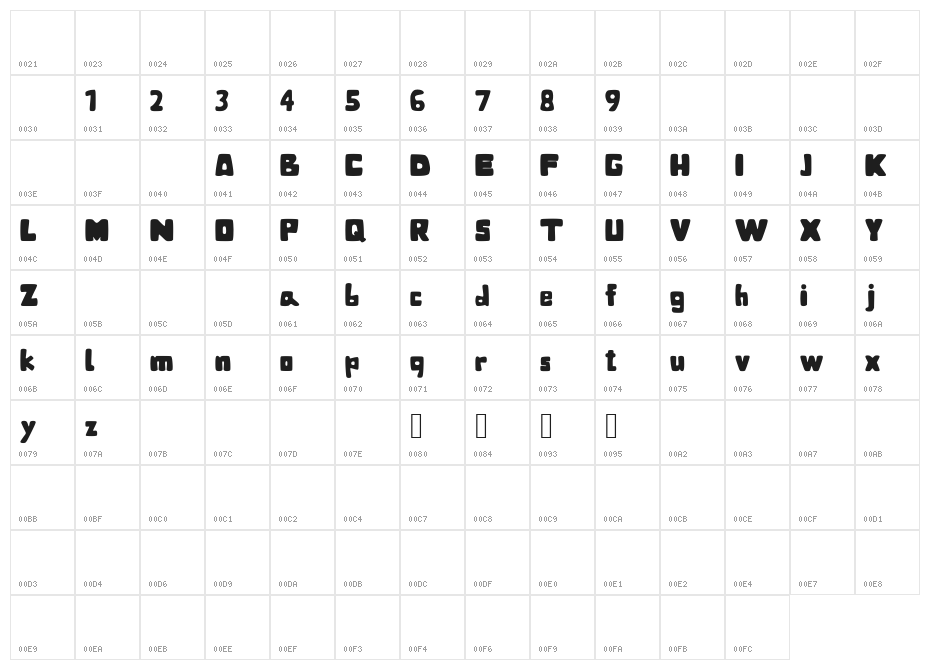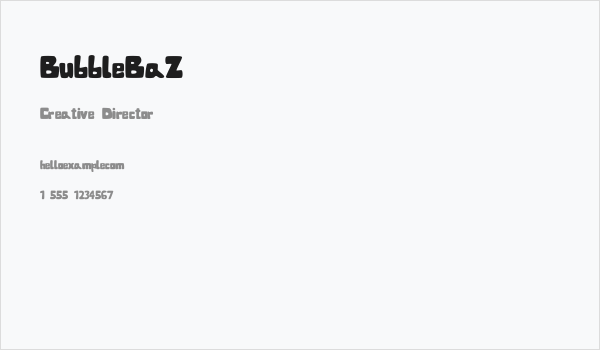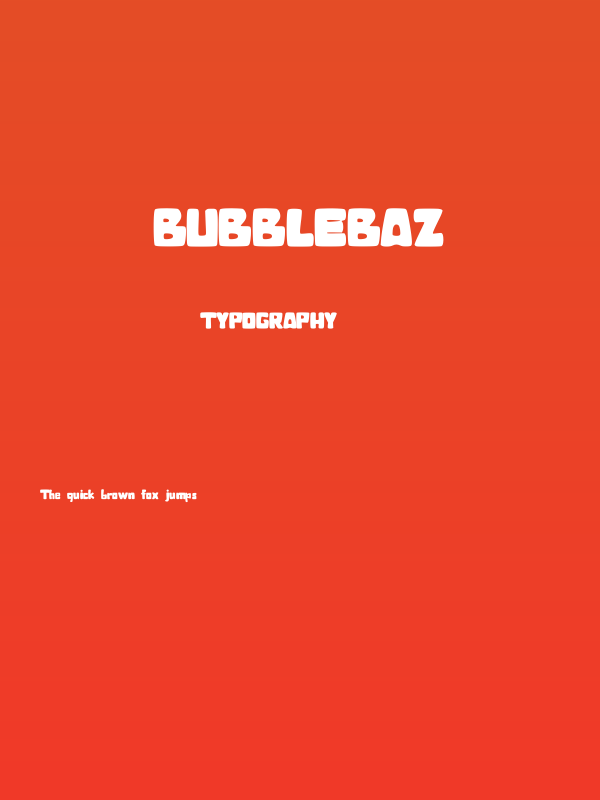
BubbleBaZ Font
BubbleBaZ Description
This font features a playful and rounded style, characterized by its bold and bubbly appearance. The letters are thick and have a soft, inflated look, reminiscent of bubble letters often seen in playful or informal contexts. The uppercase and lowercase letters maintain a consistent width, giving the font a uniform and cohesive look. The numbers and special characters follow the same design principles, ensuring a harmonious appearance across all glyphs. This font's unique style makes it stand out, adding a fun and whimsical touch to any design.
| Proposed Projects | Ideal for children's books, playful branding, party invitations, and casual posters. |